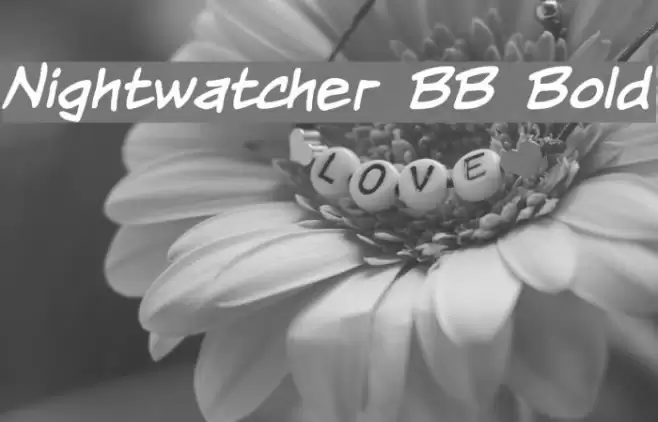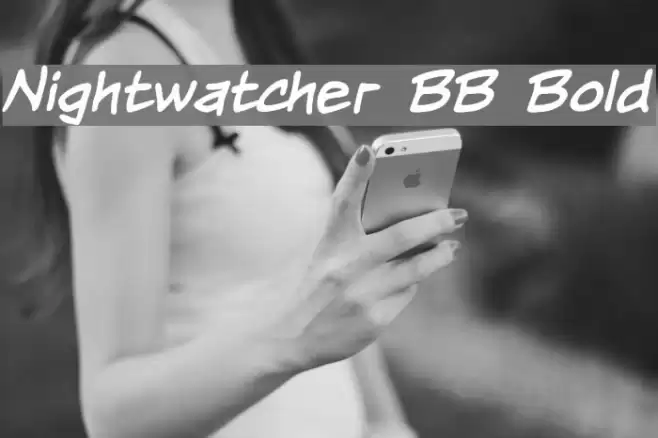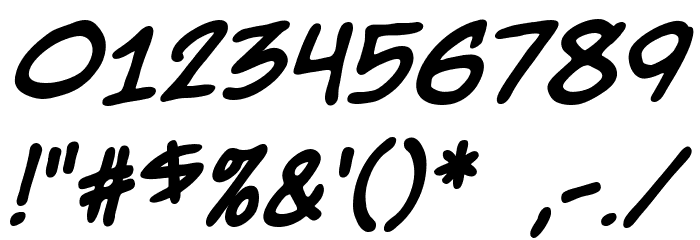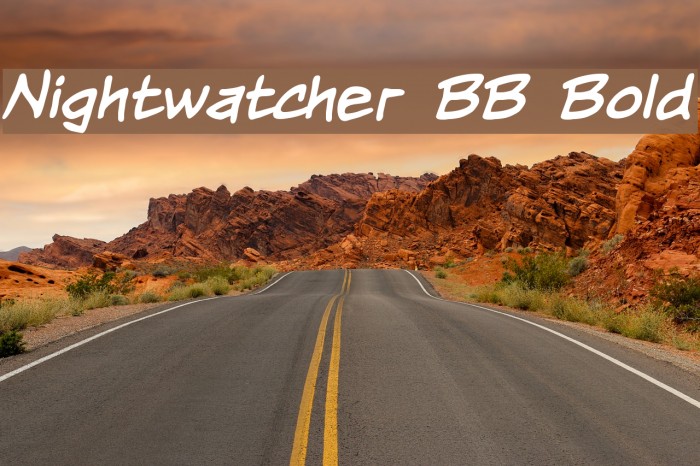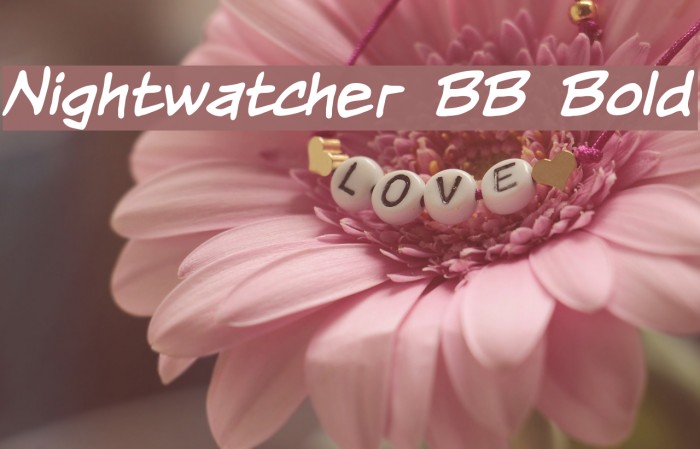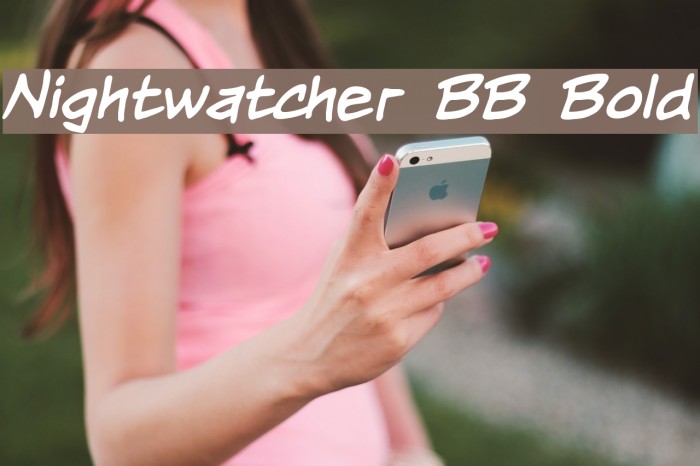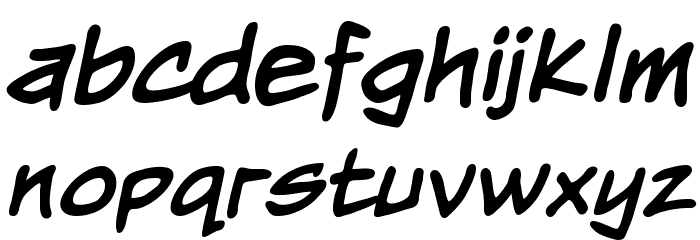
Nightwatcher BB Bold Font
Nightwatcher BB Bold Description
This font features a bold, energetic script style with a dynamic and fluid appearance. The characters are slightly slanted, giving a sense of motion and liveliness. The strokes are thick and consistent, providing a strong visual impact. The uppercase letters are bold and prominent, while the lowercase letters maintain a cohesive flow. Numbers and special characters are designed to match the overall style, ensuring uniformity across all elements. This font is ideal for projects that require a personal and informal touch, such as invitations, posters, or branding materials.
A bold, dynamic script font with a lively and fluid style from Uncategorized fonts.
- Proposed Projects: Ideal for invitations, posters, branding materials, and any project needing a personal touch.